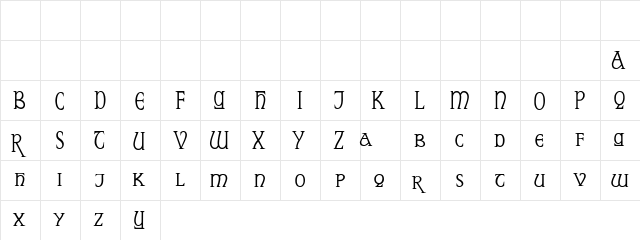
Reynard Demo Regular
Design Context for Reynard Demo Typeface
Reynard Demo is a composed and adaptable typeface that performs quietly and consistently across a wide range of design contexts.